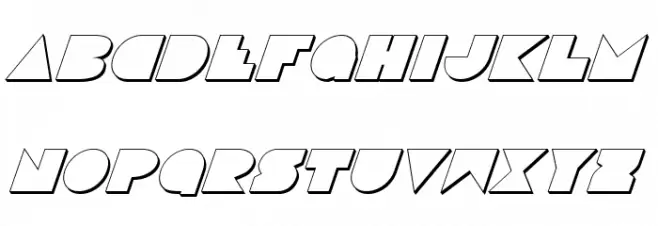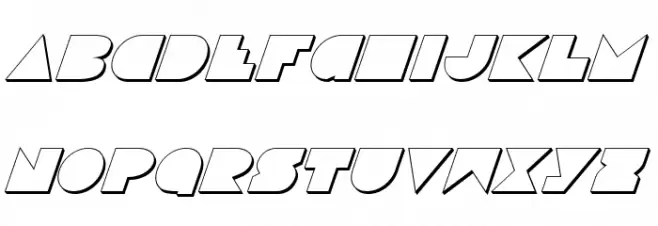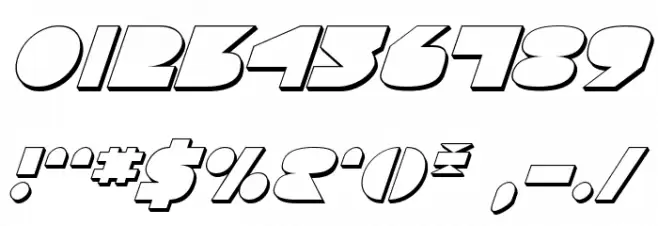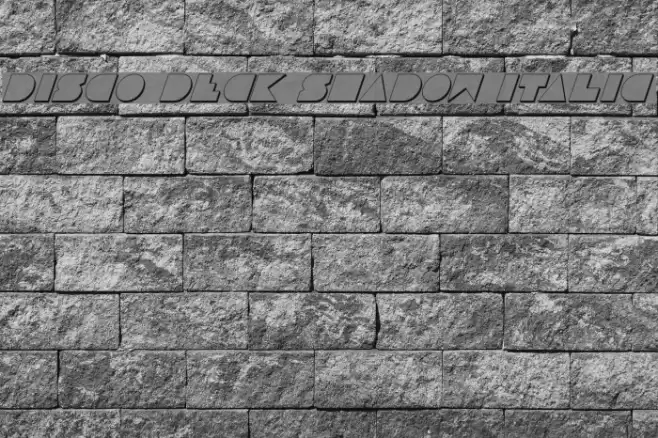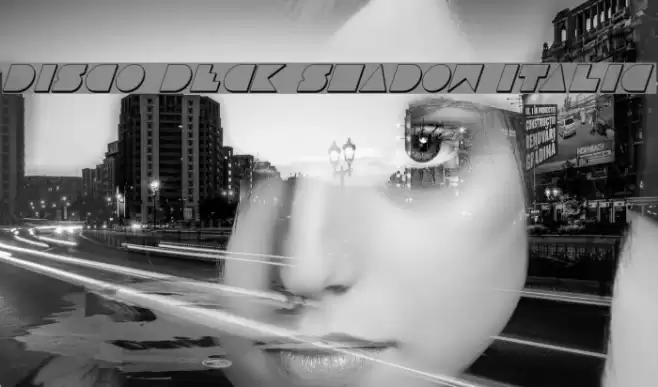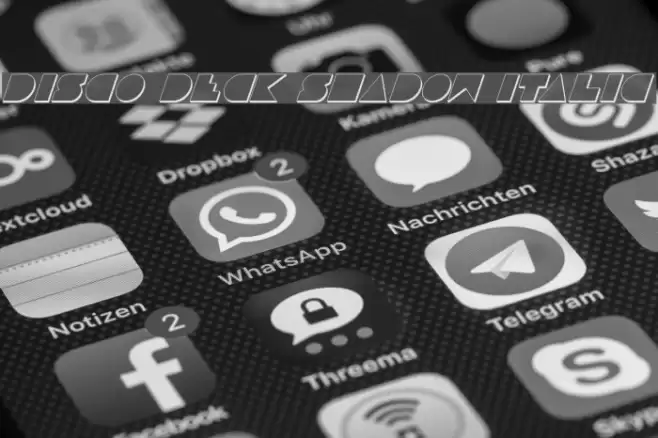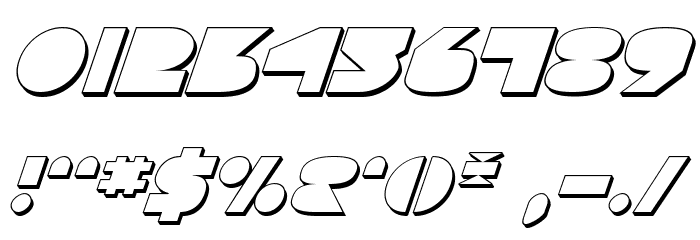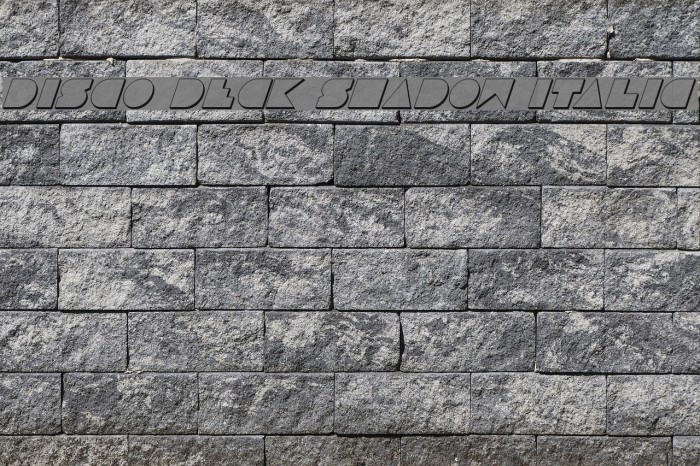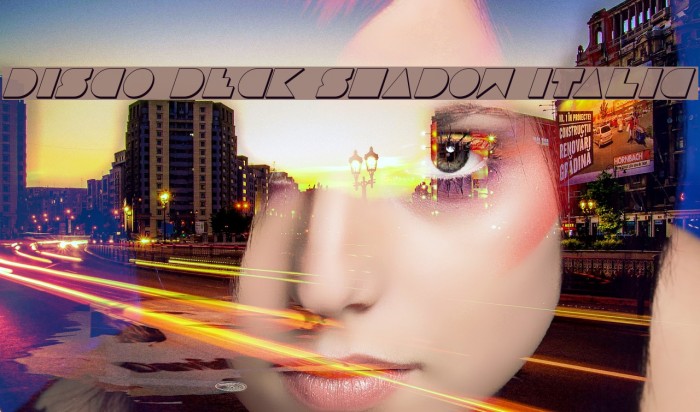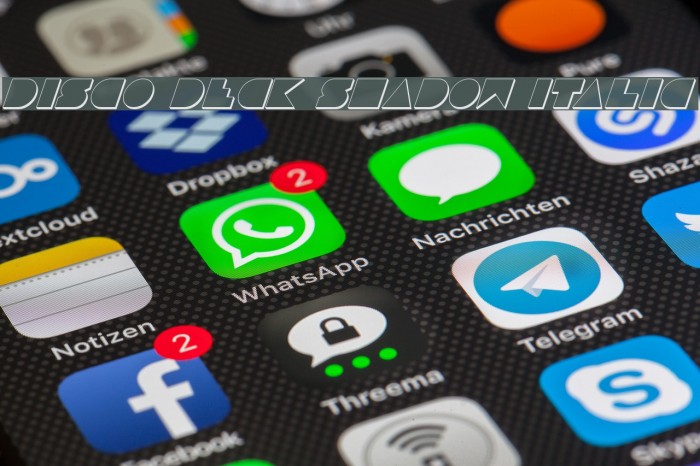
Disco Deck Shadow Italic
This font features a bold, geometric design with a distinct shadow effect that gives it a three-dimensional appearance. The characters are italicized, adding a dynamic and forward-moving feel. The uppercase letters exhibit a strong, angular style with sharp edges and clean lines, while the lowercase letters maintain a consistent design. The numerals and special characters follow the same aesthetic, ensuring uniformity across all glyphs. This font's unique shadowing and italic slant make it stand out, offering a modern and futuristic vibe that is both eye-catching and versatile.
A bold, geometric italic font with a shadow effect for a dynamic, modern look.
- Proposed Projects: Ideal for retro-themed designs, posters, album covers, and branding that requires a bold statement.
- Use Case: Headlines, Logos, Posters